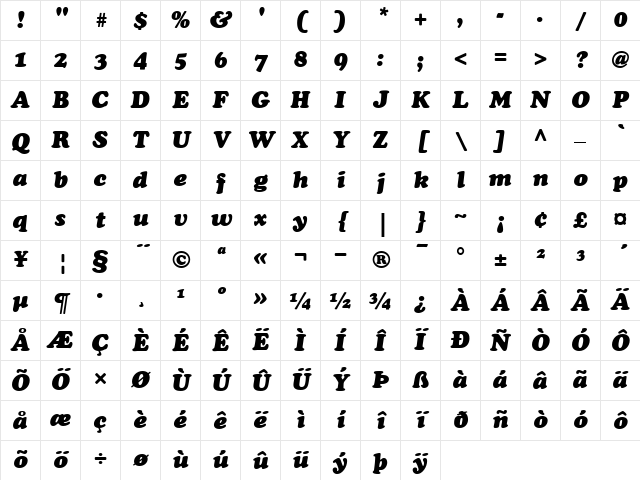
Cooper-Black BlackItalic
Style: BlackItalic
Complete Cooper-Black BlackItalic glyph index. Displaying only characters natively supported by Cooper-Black BlackItalic font.
Design Context for Cooper-Black
Cooper-Black is a composed and adaptable typeface that performs quietly and consistently across a wide range of design contexts. The slanted form adds forward momentum and visual energy.
Pro Tip: Use Cooper-Black for emphasis, pull quotes, and subheadings where its slanted energy can add rhythm to the layout.